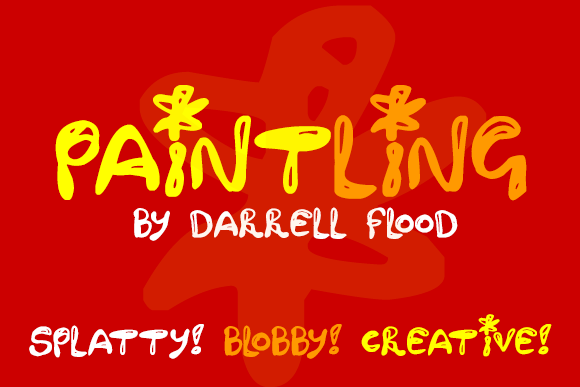
Introduction to Paintling Font
Paintling is a cute, splatty font in a painterly style.
Child-like strokes and wobbly loops combine to create a care-free feeling in the typeface, and can add a youthful appeal to your projects or designs Add Paintling to your font collection, a whimsical and care-free font.